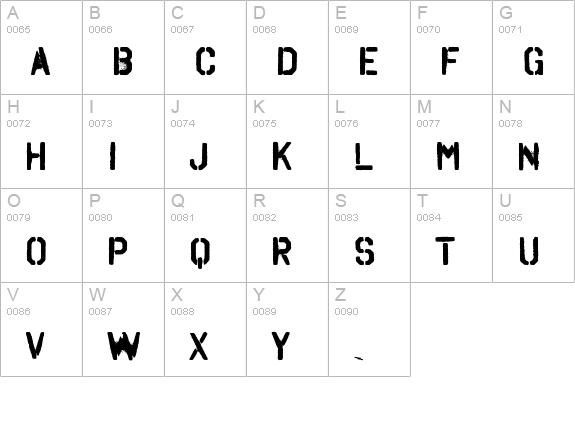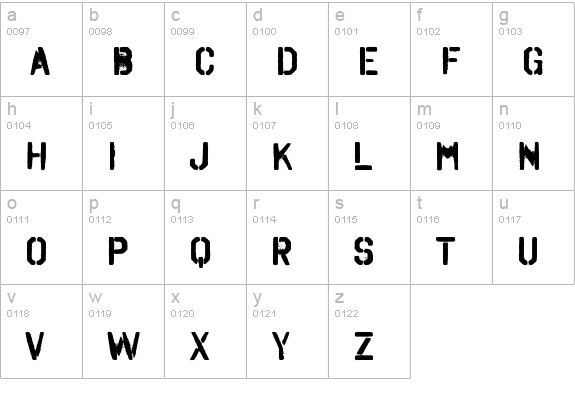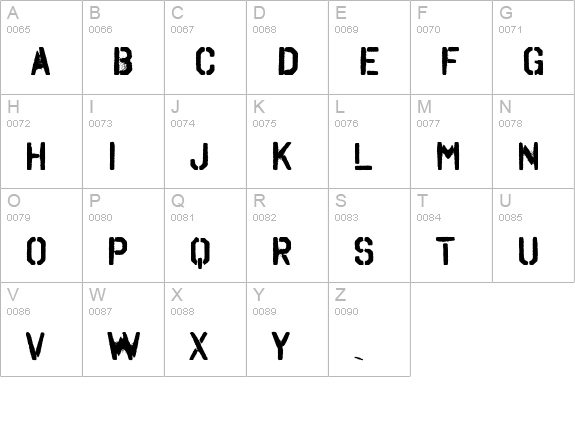
Octin Spraypaint A Rg Bold Font Details
Octin Spraypaint A Rg Bold is a strong, high-contrast variant in the Octin typeface family \xE2\x80\x94 well suited to headlines, attention-grabbing titles, and strong calls-to-action.
Octin Spraypaint A Rg Bold is a striking and bold font that exudes an urban and modern aesthetic. Its edgy and gritty appearance makes it perfect for projects that require a bold statement or a touch of urban flair. The rugged spray-painted style of this font adds a unique and rebellious touch to any design. The Octin Spraypaint A Rg Bold font is ideal for graphic design projects, posters, album covers, and other creative endeavors that call for a bold and attention-grabbing typeface. Its versatility allows it to be used in a variety of contexts, from street art-inspired designs to industrial-themed projects. Best of all, this font is available for free download at FontsMarket.com. You can easily access and incorporate Octin Spraypaint A Rg Bold into your designs without any cost, making it a valuable resource for designers looking to add a bold and distinctive touch to their work. Download Octin Spraypaint A Rg Bold today and take your designs to the next level with this dynamic and eye-catching font.